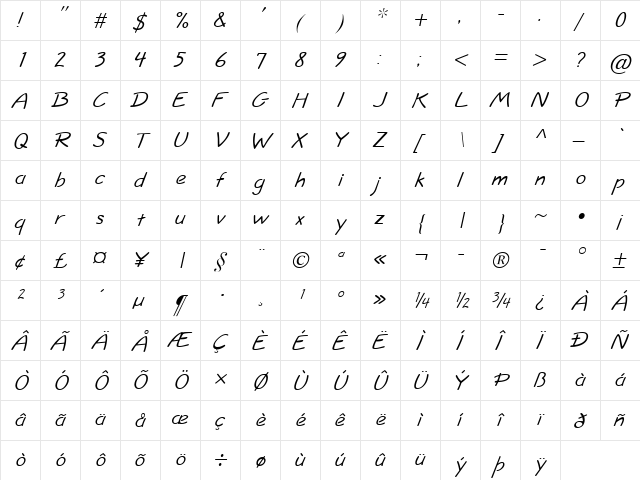
Short Hand Heavy Italic
Design Context for Short Hand Heavy Typeface
Short Hand Heavy brings a calligraphic fluidity to the page — its connecting strokes and expressive curves give it an unmistakably human quality.
Font Pairing: Combine Short Hand Heavy with a simple geometric sans for maximum contrast — the tension between flowing curves and clean structure is a classic typographic pairing.
Pro Tip: Pair Short Hand Heavy with a clean sans-serif for supporting text. The contrast between fluid script and geometric structure creates an elegant typographic hierarchy.